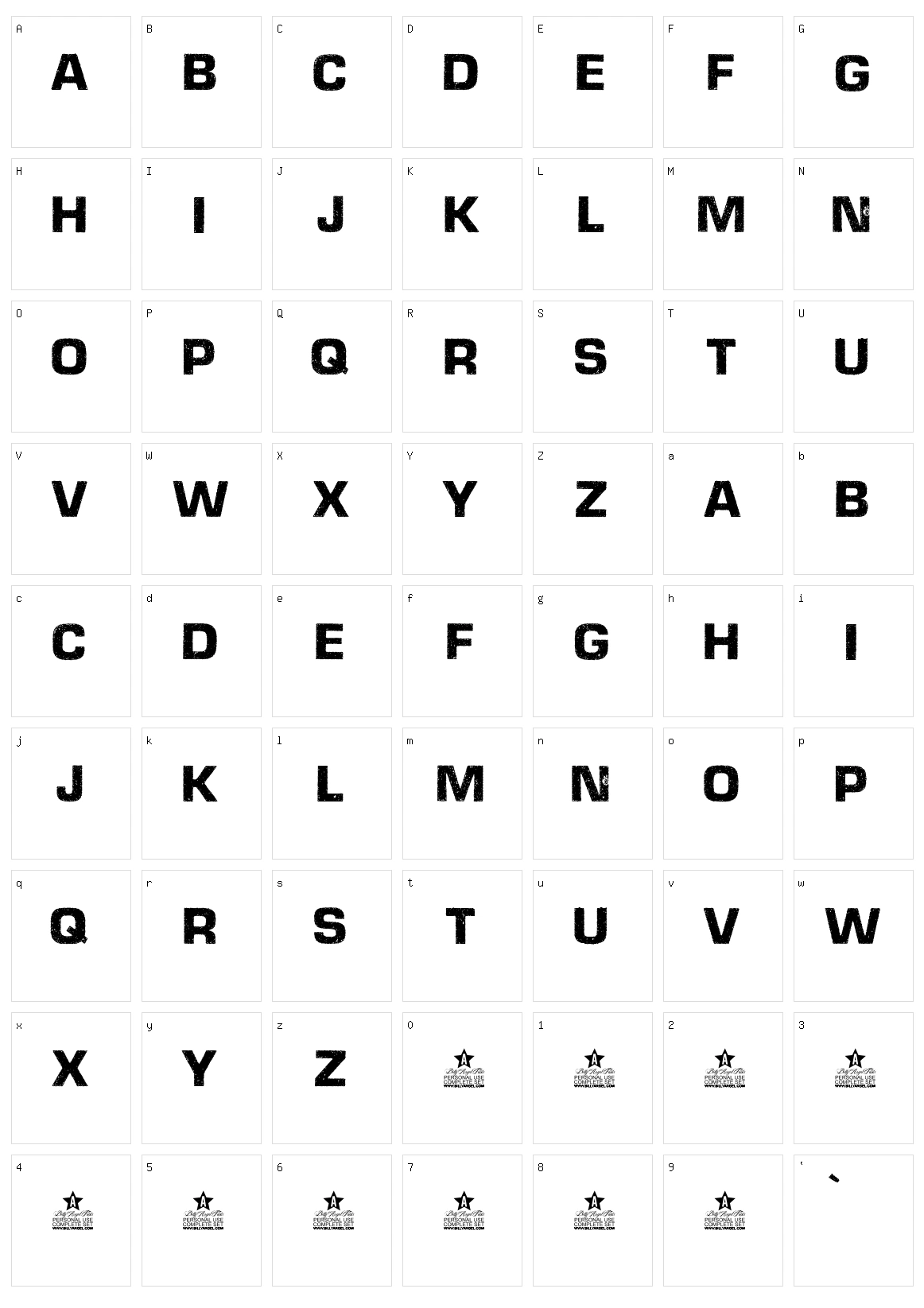
The free font Dieselpower is carefully designed by Billy Argel Fonts ®, showcasing a thoughtful balance of creativity and usability and falls under the Eroded font style. When you download the ZIP file, it contains only 281.31 KB of font files, making it lightweight and quick to download. Please review the license details below to understand permitted usage and distribution rights. If license information is not available, we recommend using this font for personal projects only or contacting the author directly for commercial usage permissions.